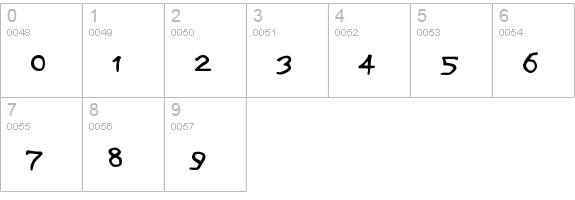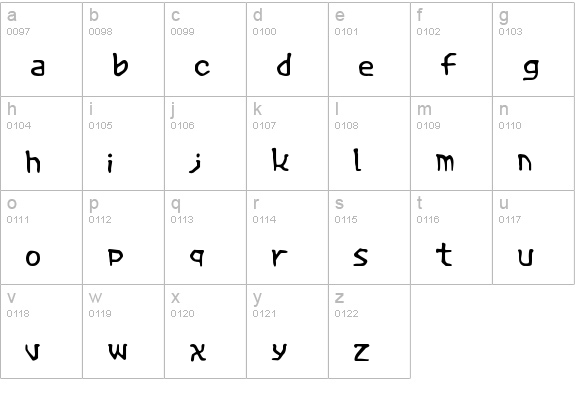
Vermin Magic Font Details
Vermin Magic is a captivating and whimsical font that will add a touch of magic to any project. Its playful and quirky design is reminiscent of mischievous creatures scurrying around in the night, casting spells and leaving a trail of enchantment in their wake. With its unique and eye-catching letterforms, Vermin Magic is perfect for adding a touch of personality to your designs. Whether you're creating a logo, designing a poster, or crafting an invitation, this font will bring a sense of fun and adventure to your work. One of the greatest features of Vermin Magic is that it is free to download. That's right, you heard it correctly! This delightful font is freely available at FontsMarket.com, making it accessible to all who seek a little bit of magic in their designs. So why wait? Get your hands on Vermin Magic today and let your creativity soar to new heights. Download Vermin Magic for free at FontsMarket.com and let the enchantment begin!